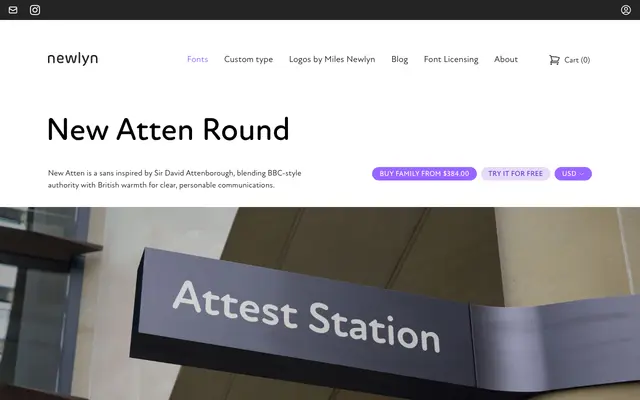
New Atten Round Italic
The italic companion to New Atten Round, a rounded humanist sans designed for extended reading with an accessible character set and classical capital proportions.
Inspired by the measured delivery of Sir David Attenborough, New Atten Round Italic pairs rounded terminals with a humanist structure built for long-text comfort. The family includes an Accessibility Set with differentiating forms for capital I and lowercase l, plus stylistic sets offering infant a and g for children's book use, and a minimal numeral 1 referencing Edward Johnston's London Transport letterforms. Five weights run from Book to Extra Bold, each with matching italics across the New Atten collection.
A rounded monolinear sans with humanist structure and classical capital proportions, designed for extended reading comfort at text sizes — placing it firmly in the humanist sans tradition with a rounded terminal treatment.